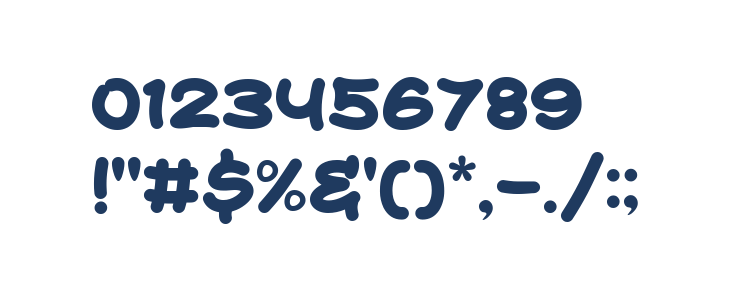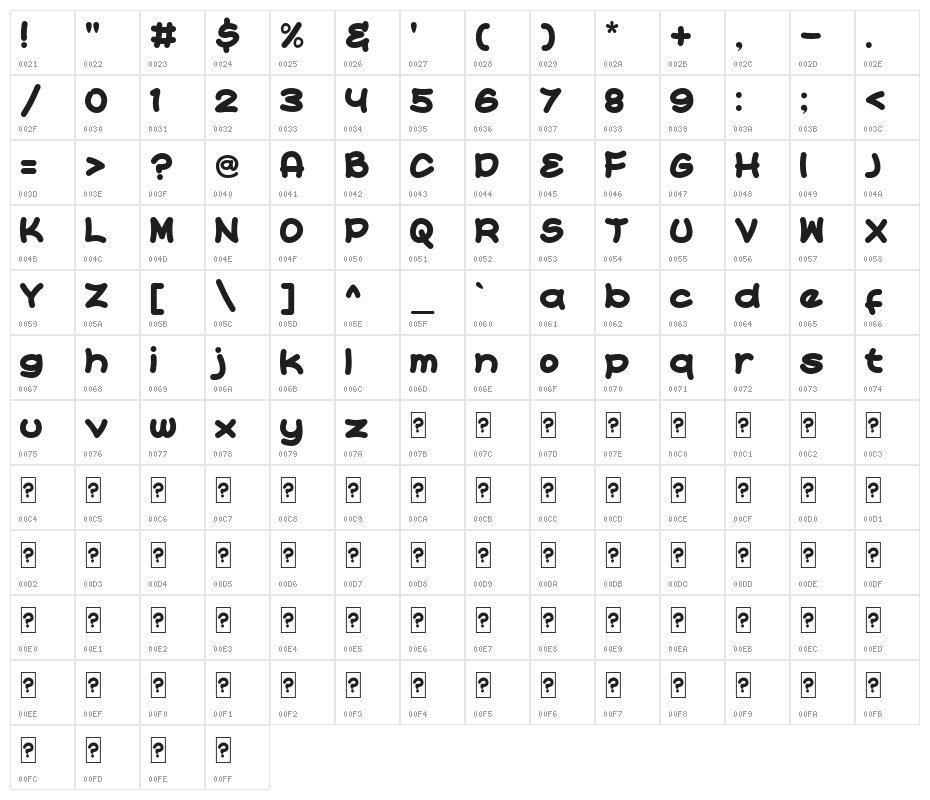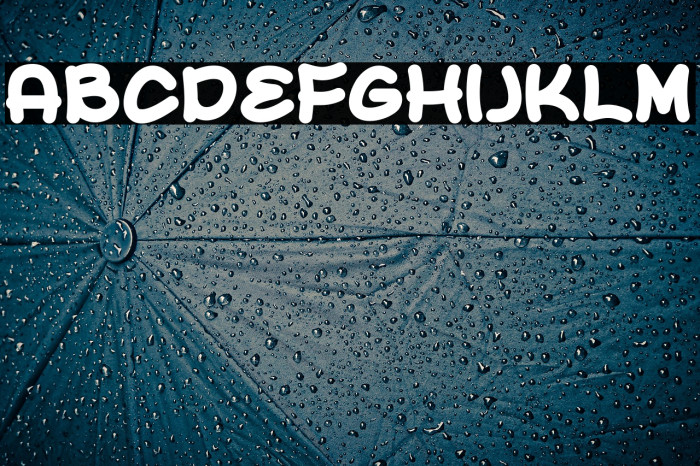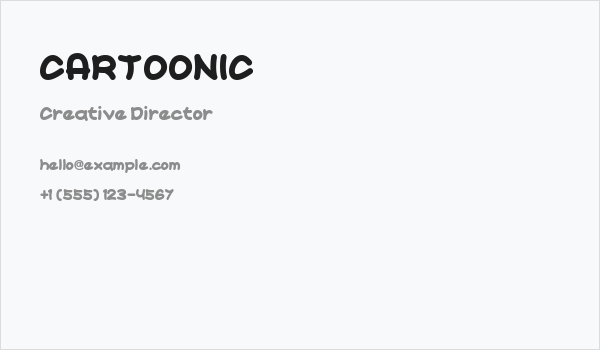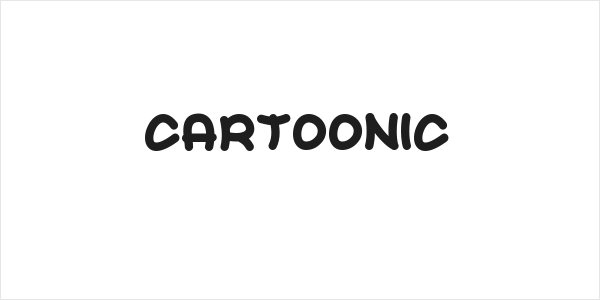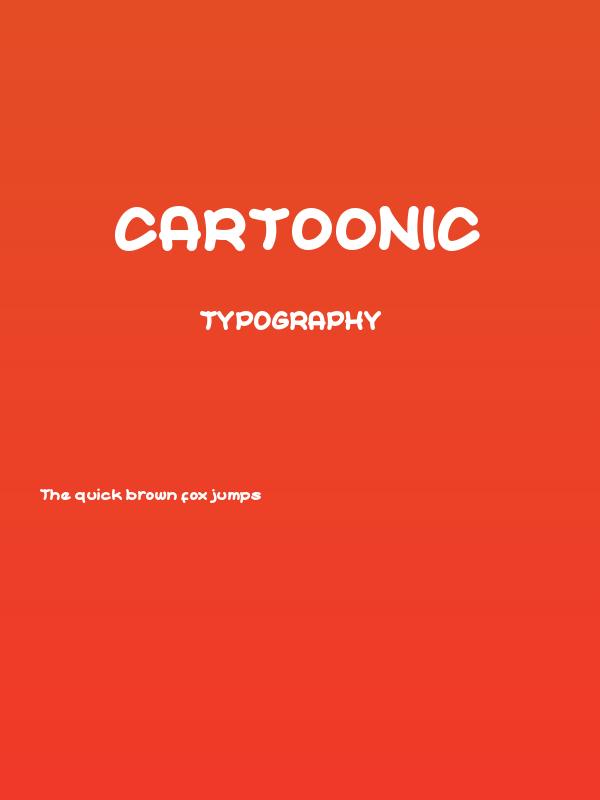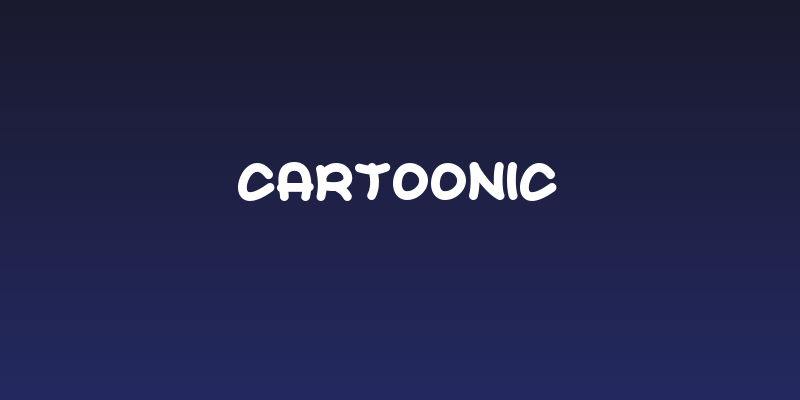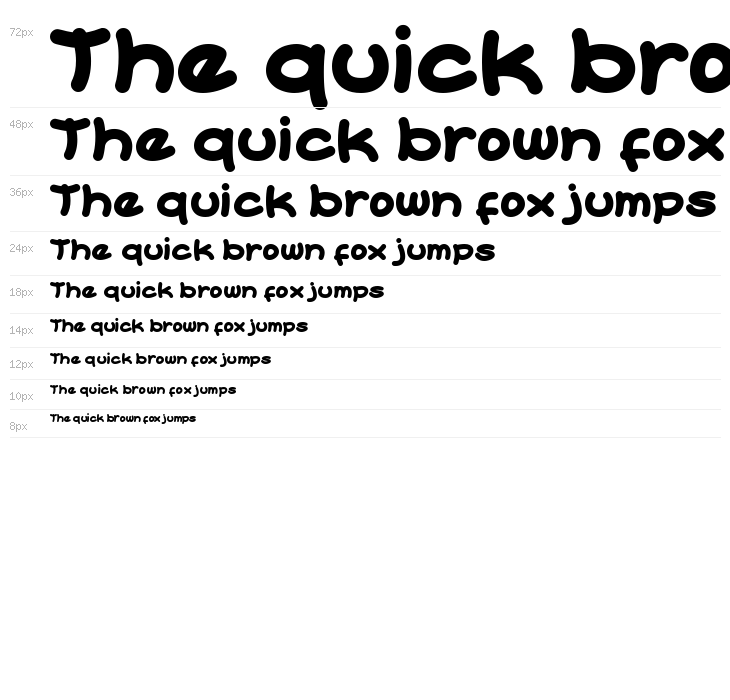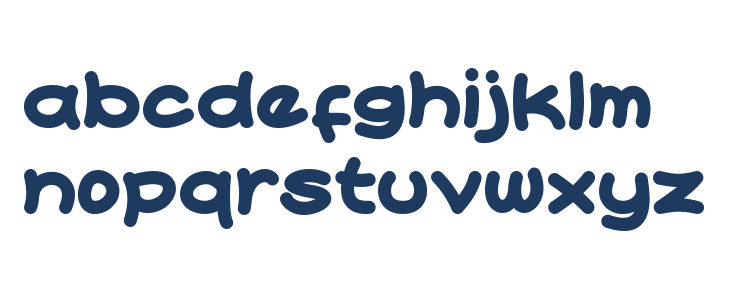
CARTOONIC Font
CARTOONIC Description
This playful and bold font exudes a whimsical charm, perfect for capturing attention with its cartoon-like appearance. The letters are rounded and thick, giving them a friendly and approachable feel. The uppercase and lowercase characters maintain a consistent style, with a slight bounce that adds to the font's lively personality. Numbers and special characters are equally bold and rounded, ensuring uniformity across all text elements. This font is ideal for projects that require a fun and engaging look, such as children's books, comic strips, or playful branding.
| Proposed Projects | Children's books, comic strips, playful branding, posters, and greeting cards. |